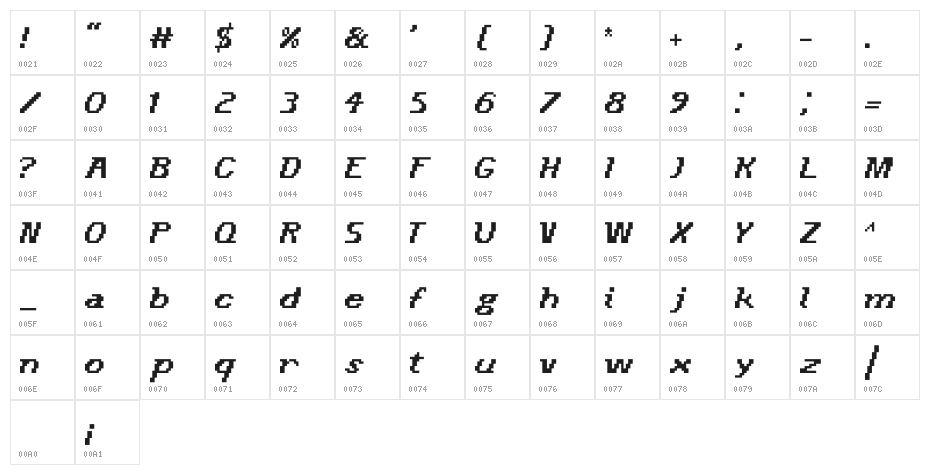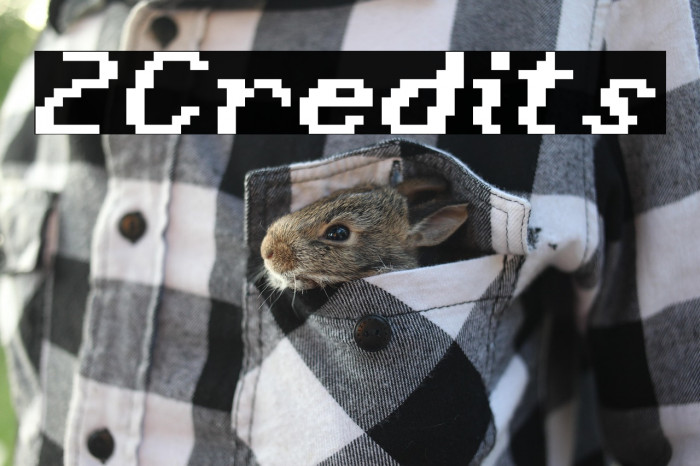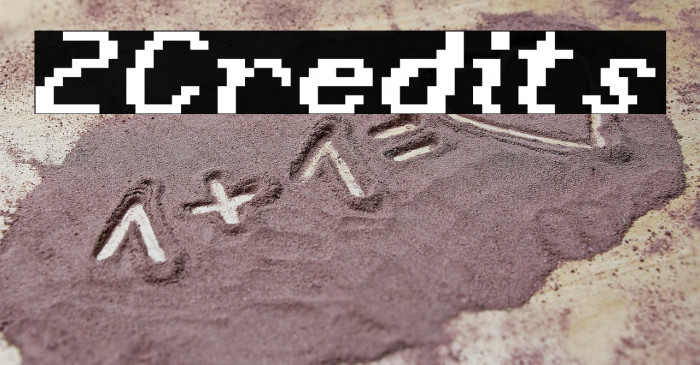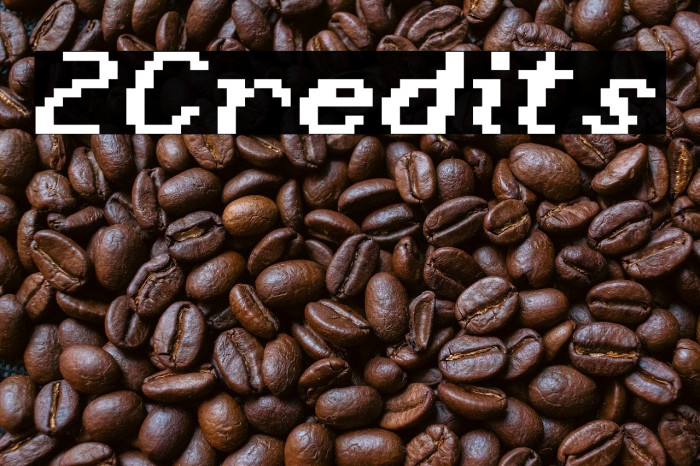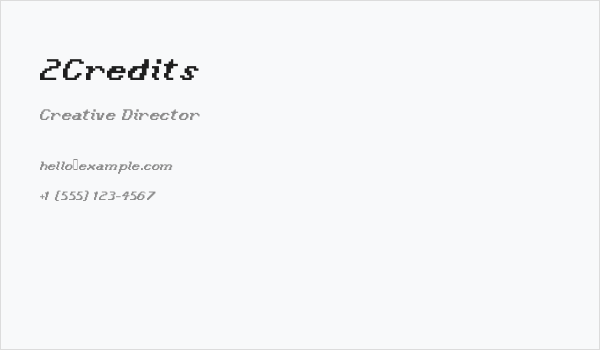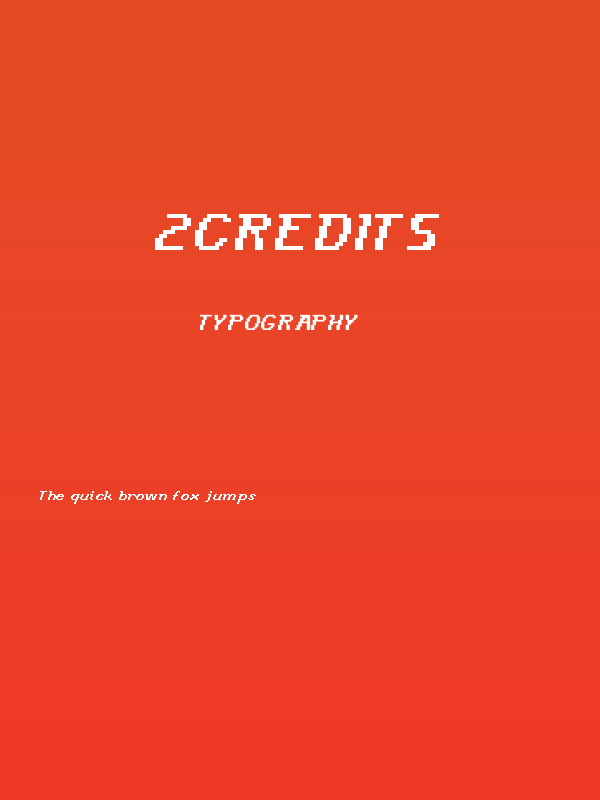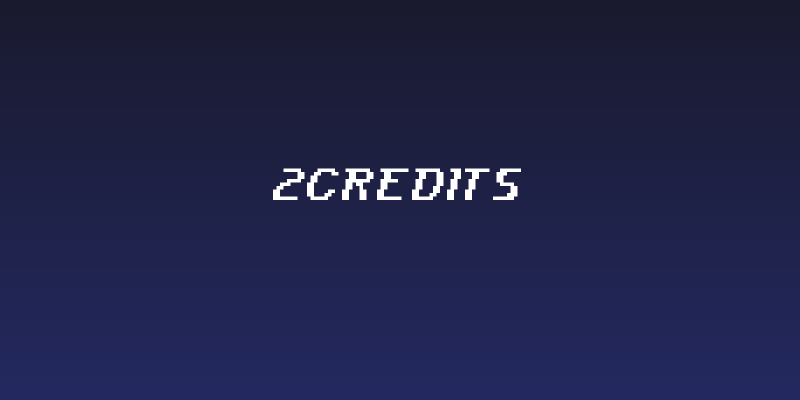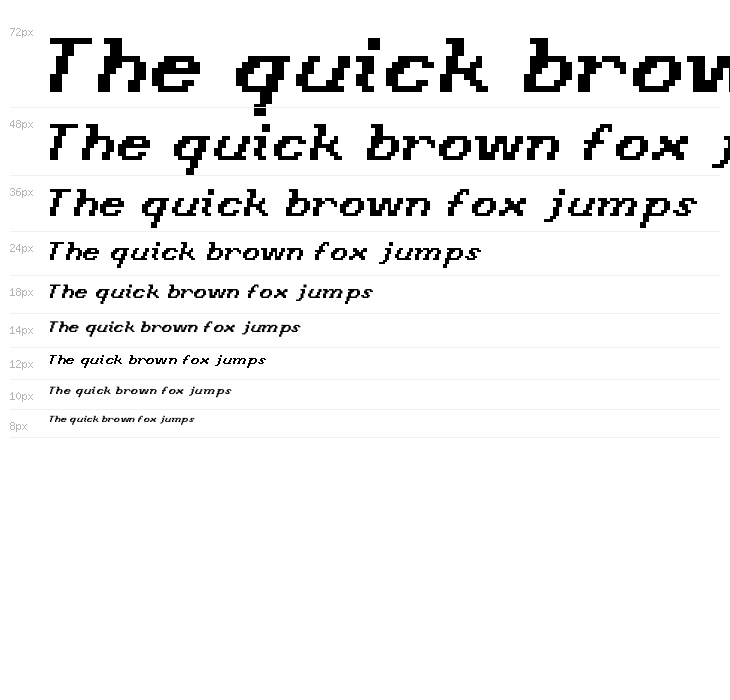
2Credits Font
2Credits Description
This font features a pixelated, retro style reminiscent of early digital displays and video games. The characters are bold and blocky, with a consistent pixelated texture that gives them a distinct, nostalgic appearance. The uppercase and lowercase letters maintain a uniform width, contributing to a monospaced look, although they are not strictly monospaced. The numbers and special characters follow the same design principles, ensuring a cohesive appearance across all glyphs. The font's unique style makes it stand out, capturing the essence of vintage computing and gaming aesthetics.
| Use Case | Logos, Headlines, Digital Art |
| Proposed Projects | Ideal for retro-themed designs, video game graphics, digital art projects, and nostalgic branding. |